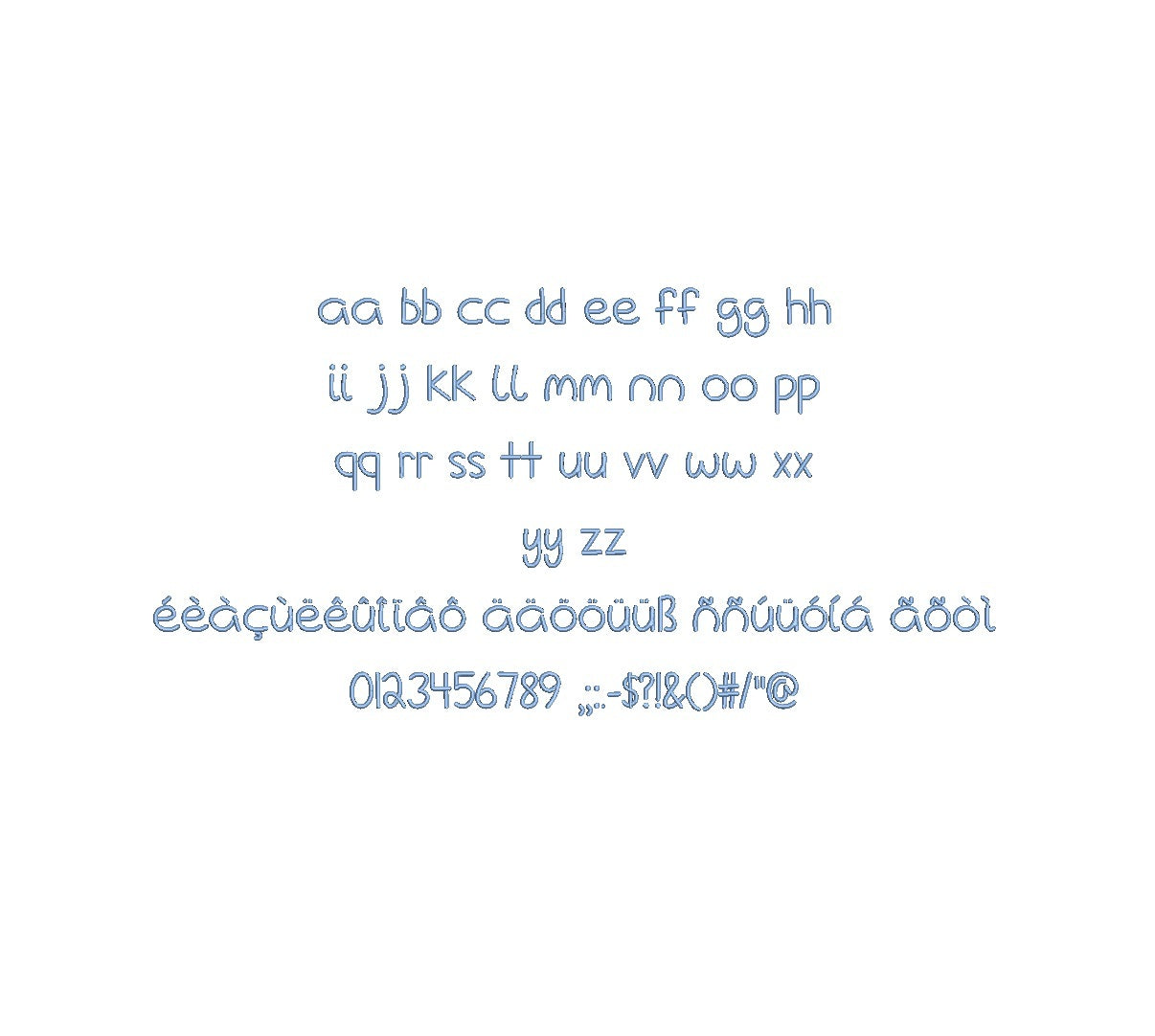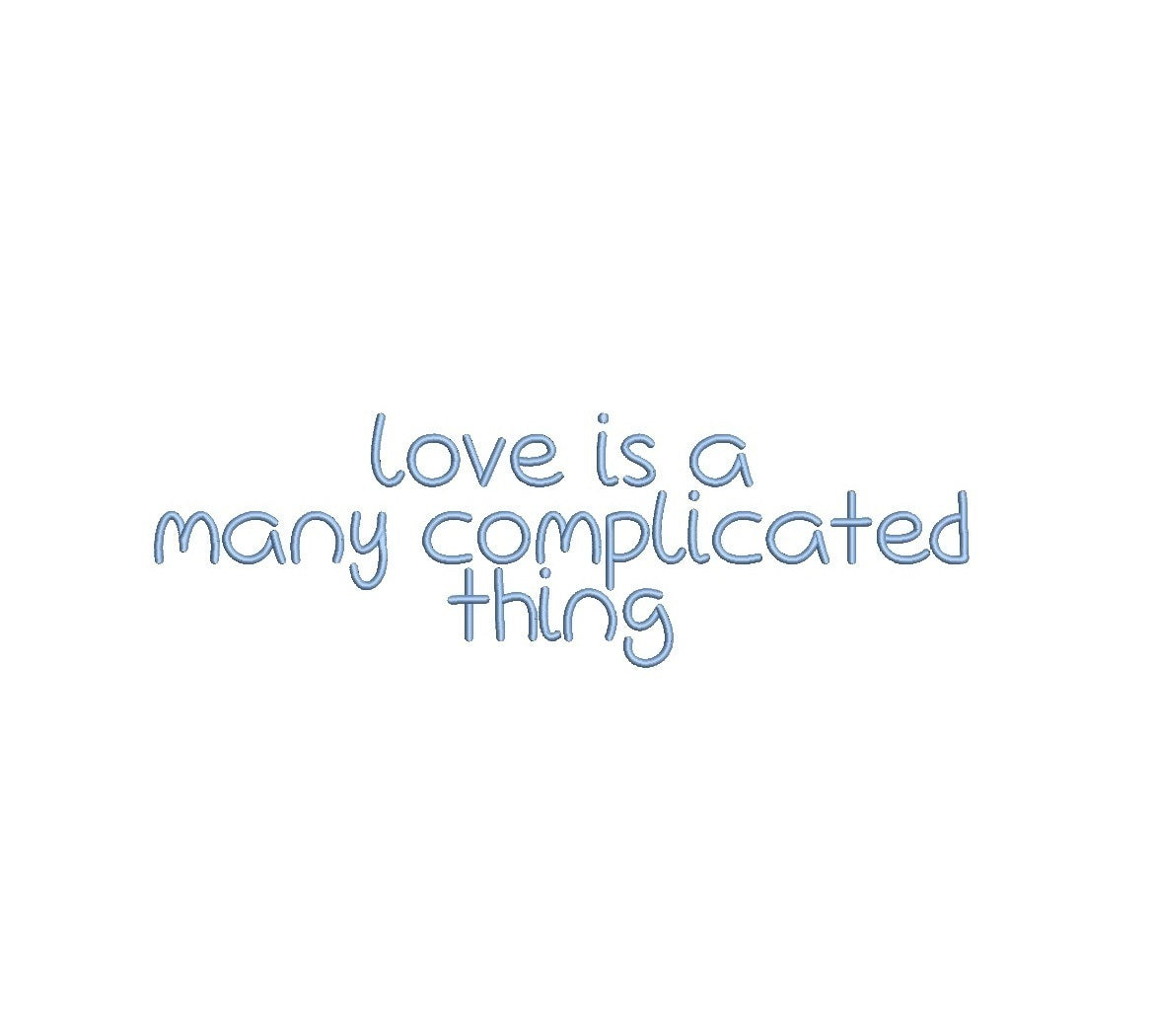
Discover the complexity of love with Love Is A Many Complicated Thing Regular ESA font, a unique choice for your embroidery designs. Infused with emotions, this font exudes depth and charm. Compatible with Wilcom Studio e4.5.6 and Hatch 3 versions and up, it seamlessly integrates into your digitization process. Craft intricate monograms, logos, and decorative accents effortlessly, conveying the intricacies of love through every stitch. Elevate your embroidery projects with a touch of sophistication and make them truly standout. Don't miss the chance to explore the complexities of love with Love Is A Many Complicated Thing Regular ESA font. Experience heartfelt artistry today!